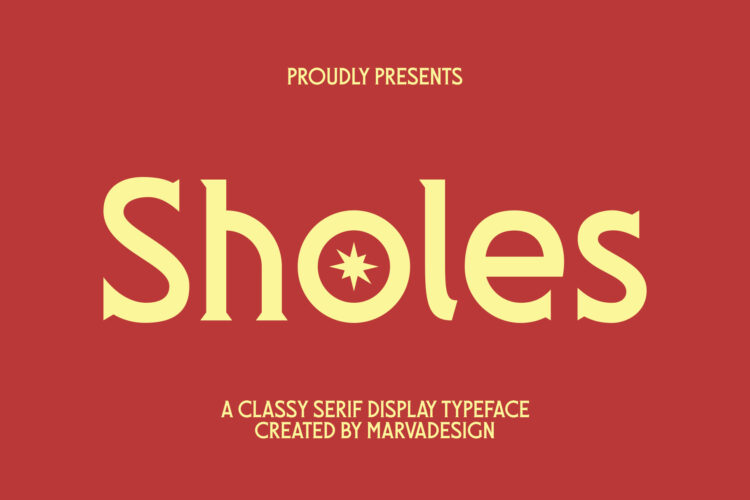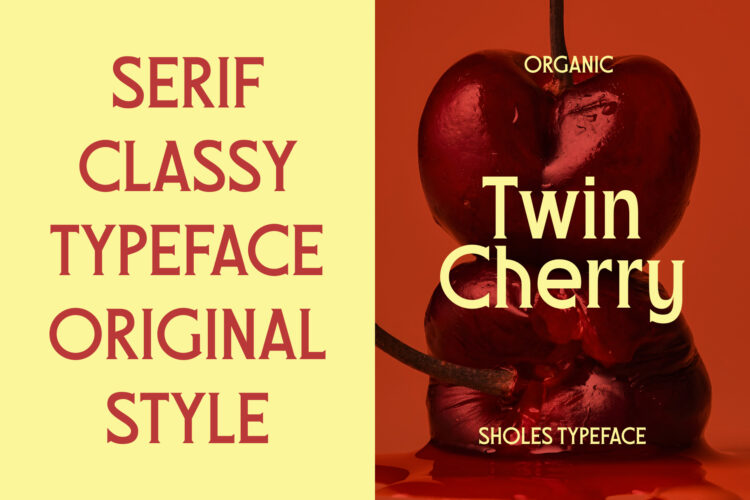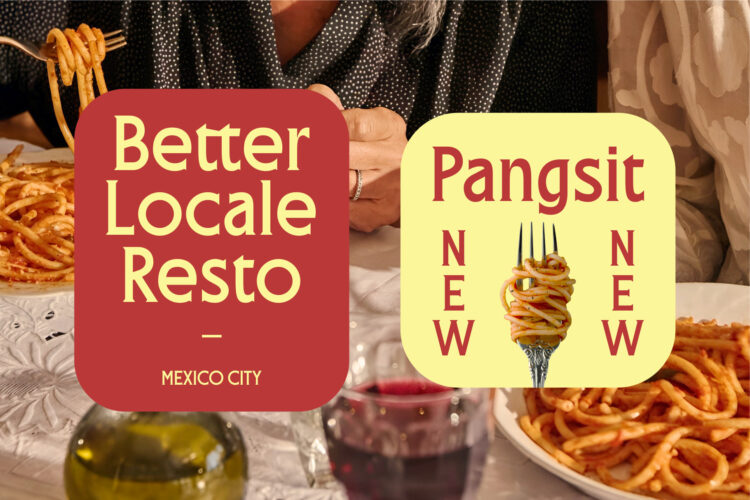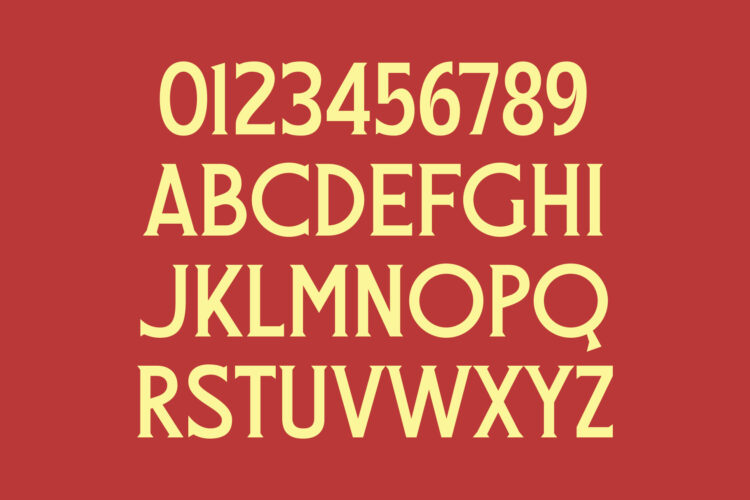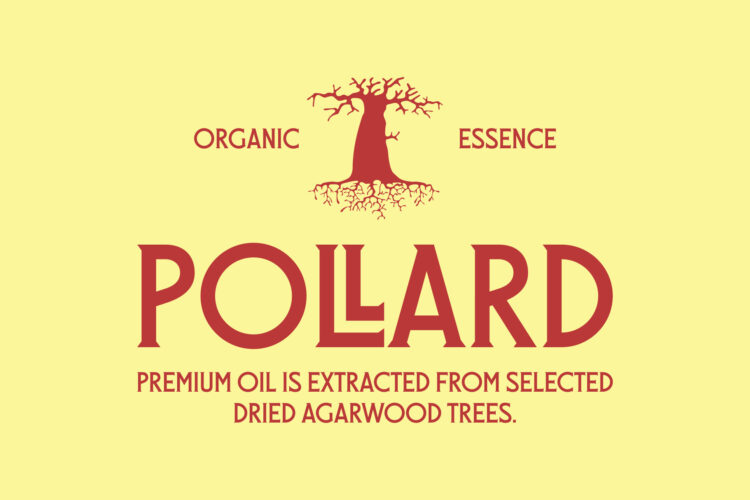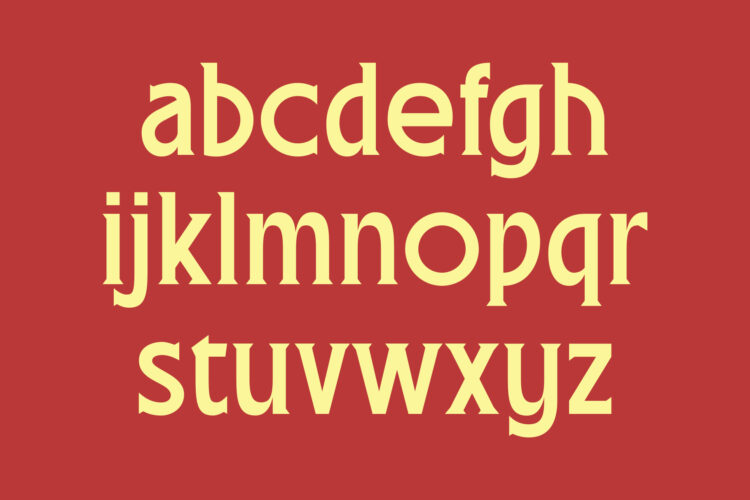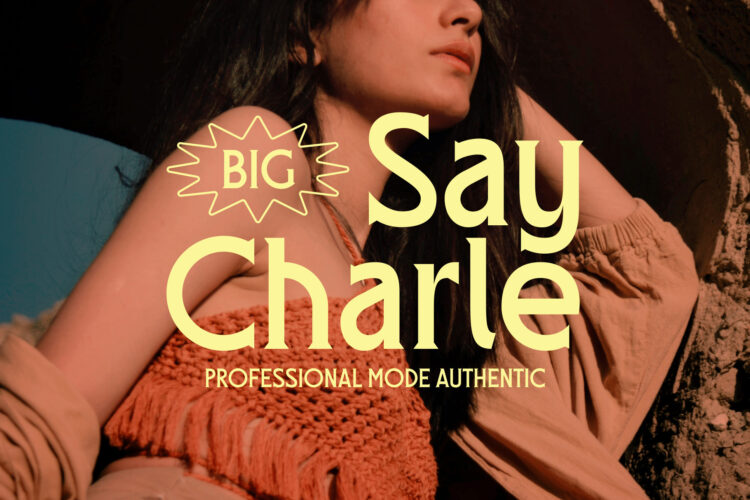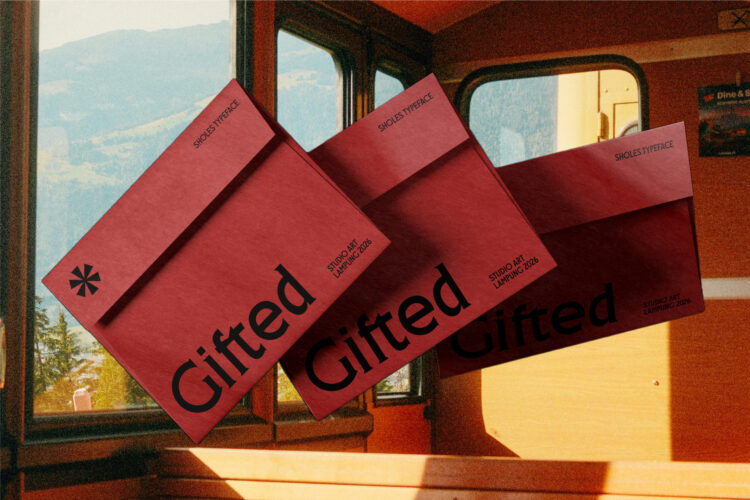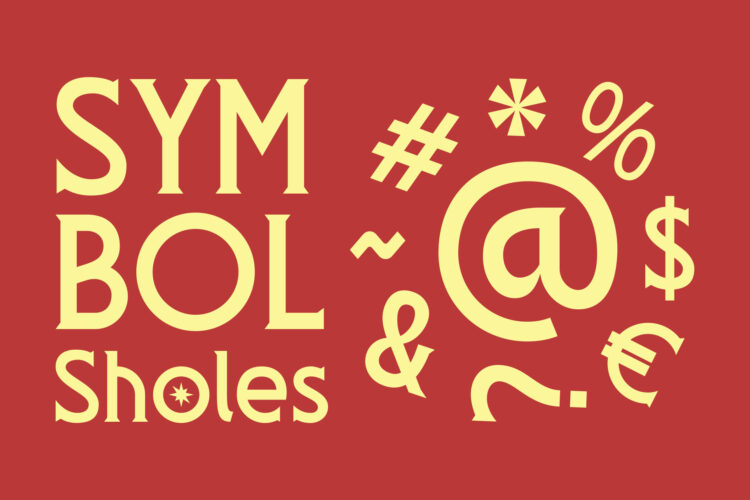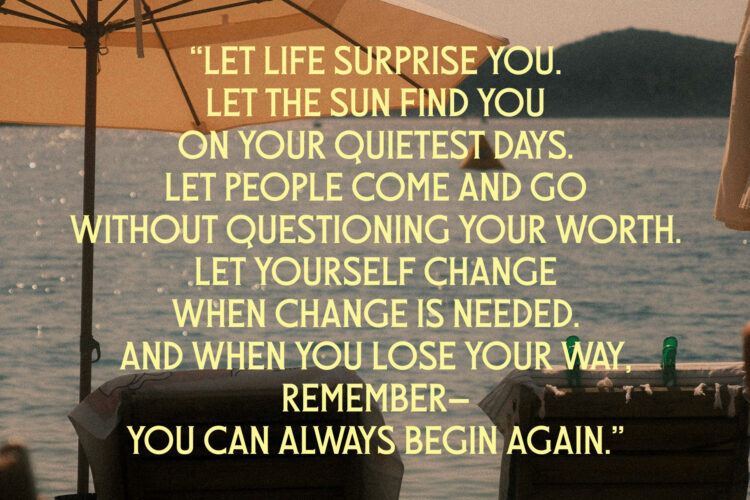
Classy Serif Display Typeface
Sholes Typeface
Sholes is a distinctive serif display typeface that blends classic elegance with a bold, contemporary attitude. Its letterforms feature strong proportions, expressive wedge-shaped serifs, generous curves, and subtly unconventional terminals that give the typeface a recognizable personality. The contrast between sturdy vertical strokes and softer rounded forms creates a refined yet confident appearance, while the slightly organic construction adds warmth and character rather than feeling overly formal. Sholes works especially well at large sizes, where its unusual details and sculptural shapes become more prominent, making it suitable for fashion editorials, luxury branding, packaging, posters, restaurant identities, lifestyle campaigns, and sophisticated headline design. Its unique combination of classical serif structure, geometric simplicity, organic curves, and unexpected details gives Sholes a timeless but distinctly modern visual identity.